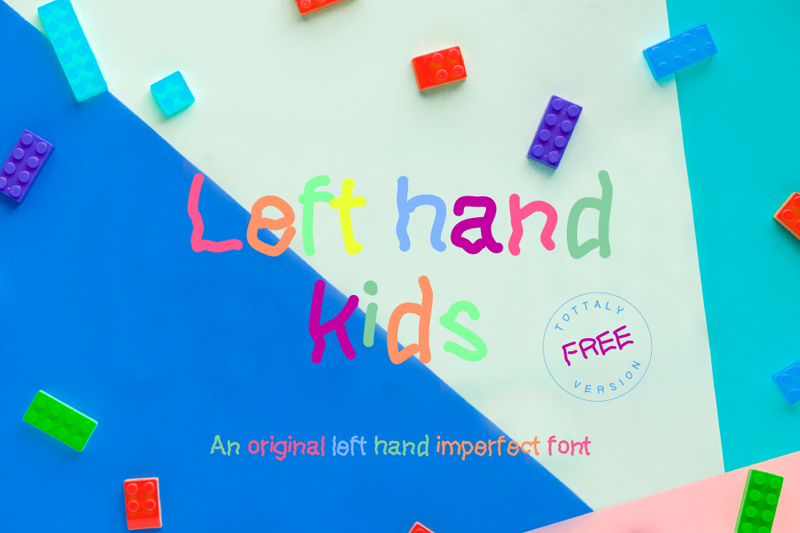
Introducing Lefthand Kids, an authentic, imperfect contemporary kid handwritten font. My 3,5 years son drew all the letters and then i digitise them creating a unique font. Lefthand Kids offers a playful feel to your projects, including invitations, product designs, book covers, social media campaigns and many more. If you like my font you can purchase full version at https://fontbundles.net/georgebourle/197858-lefthand-kids Full version includes Multilingual support, numerals, punctuation. Dedicated Greek alphabet. Font is provided in OTF and TTF format. Thanks for stopping by. If you create something cool drop me a message! |